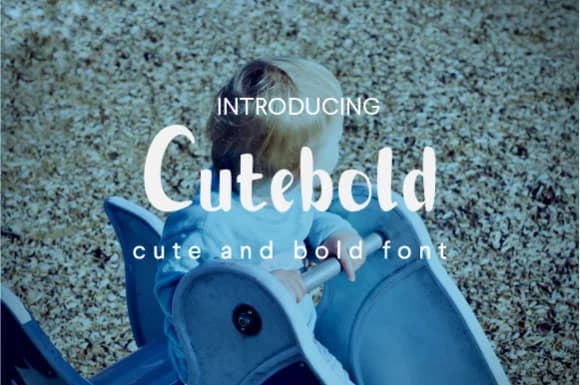
About Cutebold Font
Cutebold Font by alphArt is a modern handwritten script that brings personality and warmth to contemporary design projects. The typeface balances bold character weights with flowing, organic letterforms, making it equally suited to prominent headlines and secondary design elements alike.
This versatile script works exceptionally well for wedding invitation suites where couples want an approachable yet sophisticated aesthetic without sacrificing personality. The font also shines on DIY greeting card designs, allowing creators to add genuine warmth and authenticity without requiring advanced calligraphy skills. For small business owners, Cutebold is a natural fit for boutique product packaging and hand-lettered signage that commands attention while maintaining excellent readability across sizes. Social media graphics, event promotional materials, and craft-focused content particularly benefit from this typeface's distinctive personality and character-driven approach.
The font's construction reveals careful attention to letterform consistency and spacing, ensuring smooth integration into both digital layouts and print applications. Its handwritten nature makes it an excellent choice for brands seeking authentic, human-centered visual communication that resonates with audiences. Whether you're designing invitations, packaging, or digital content that needs genuine character and personality, Cutebold brings an effortless charm to your creative work. Find Cutebold Font on Creative Fabrica and start using this engaging typeface in your design projects.
Cutebold Font is a script font that shines as a display or heading face. Pair it with a clean sans-serif or serif font for body text β the contrast creates a clear hierarchy while the two styles stay balanced and easy to read.
Cutebold Font
by alphArt